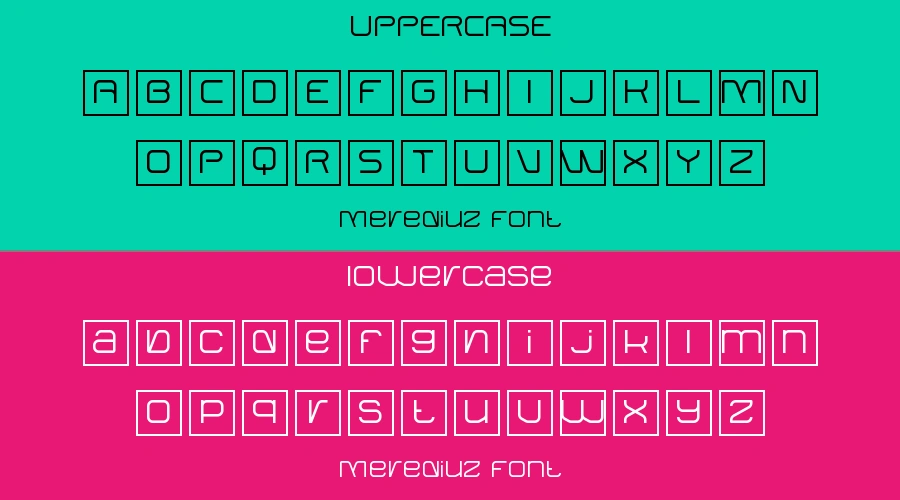
About Merediuz Font
Designed with precision, Merediuz Font merges original character with professional finish in every character. This versatility makes it particularly effective for product naming, where integrity and creative potential directly impact communication quality. Each letterform demonstrates meticulous craftsmanship.
Technical excellence shines through elements like geometric construction and automatic fractions, enhancing typographic versatility. In book chapters settings, Merediuz Font proves its worth through superior format conversion. The thoughtful execution of terminal angle and lifestyle connection ensures professional results.